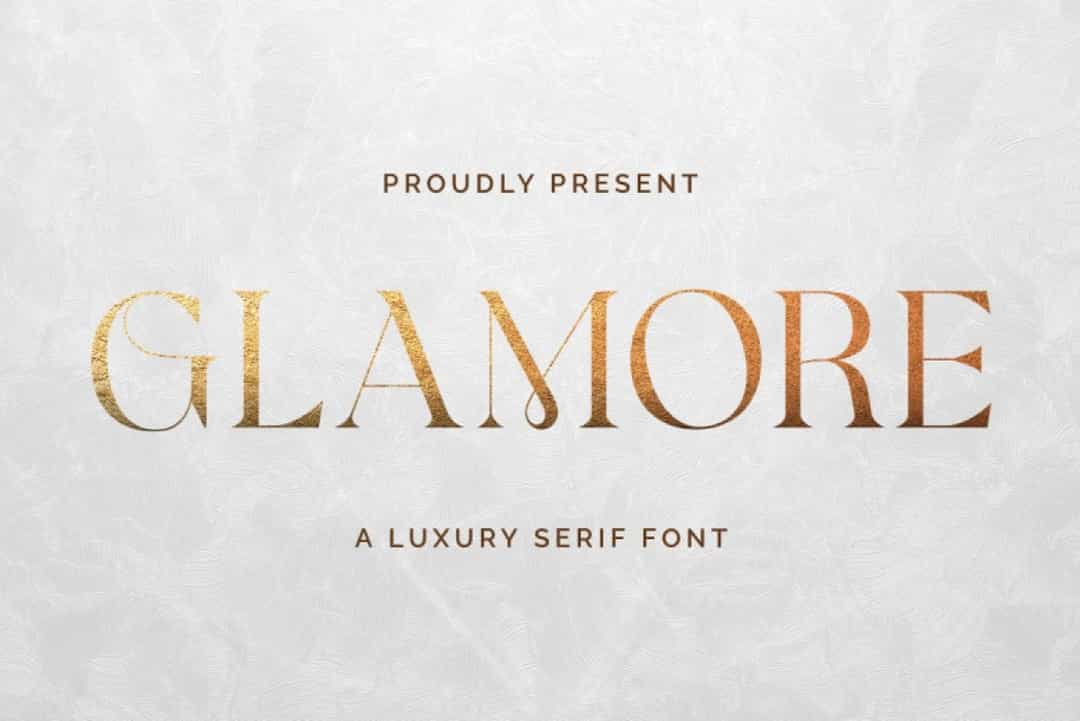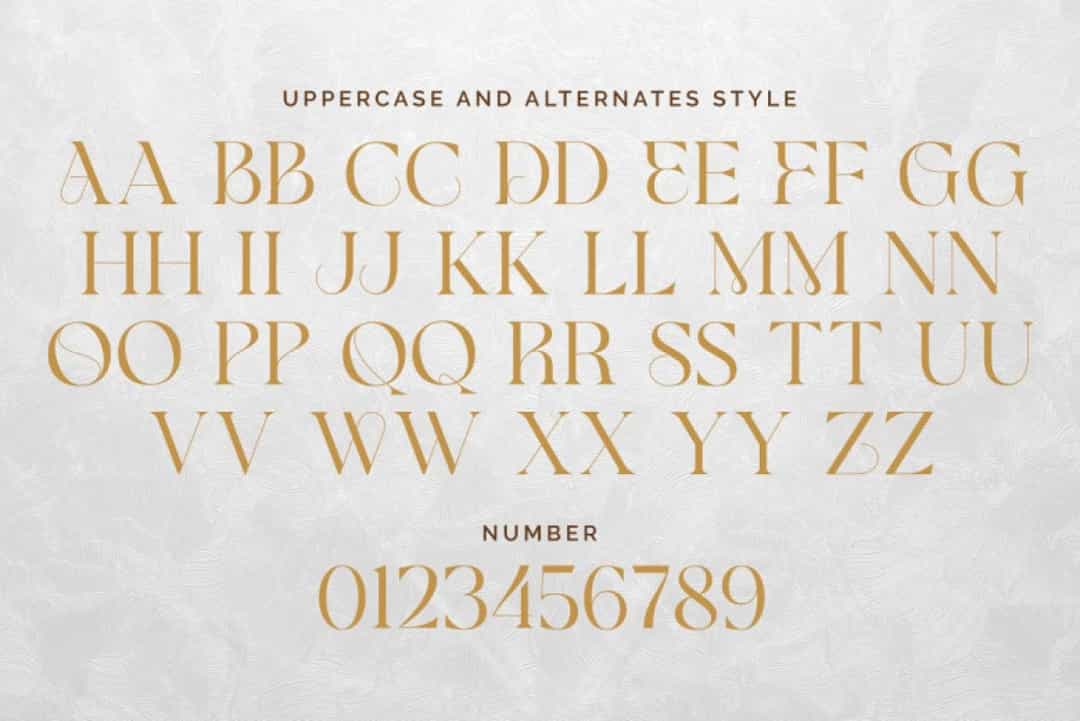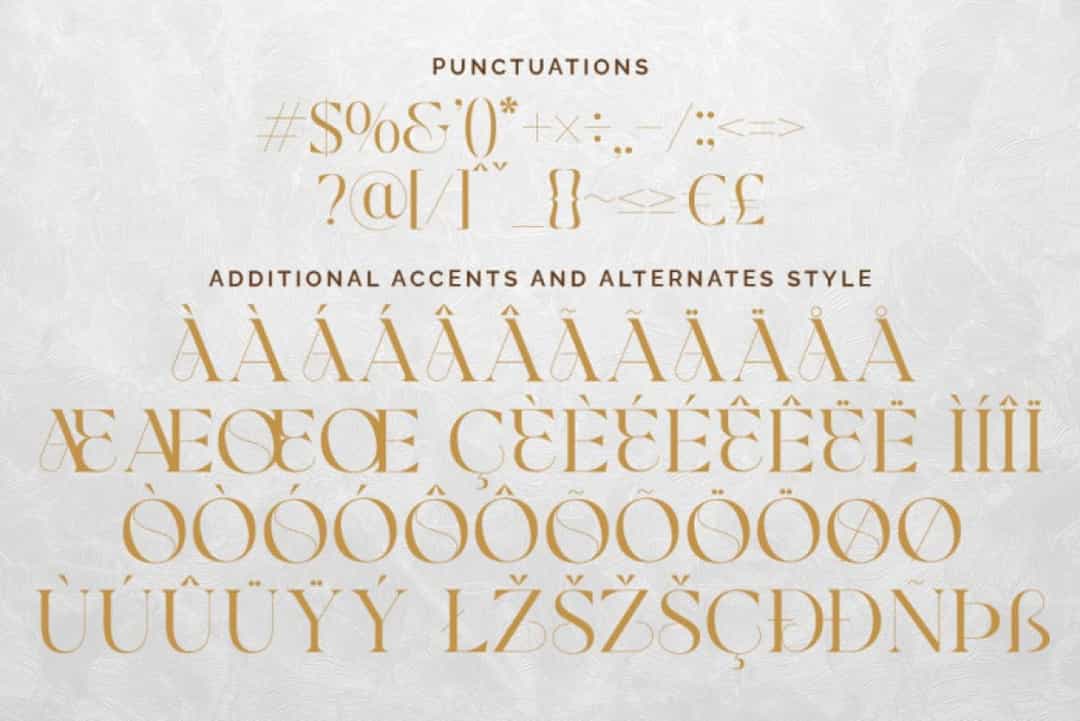
Glamore Luxury Display Serif font has been inspired by minimalist logo design, making it perfect for designing templates brochures videos and brochures branding for advertising, logos and much more.